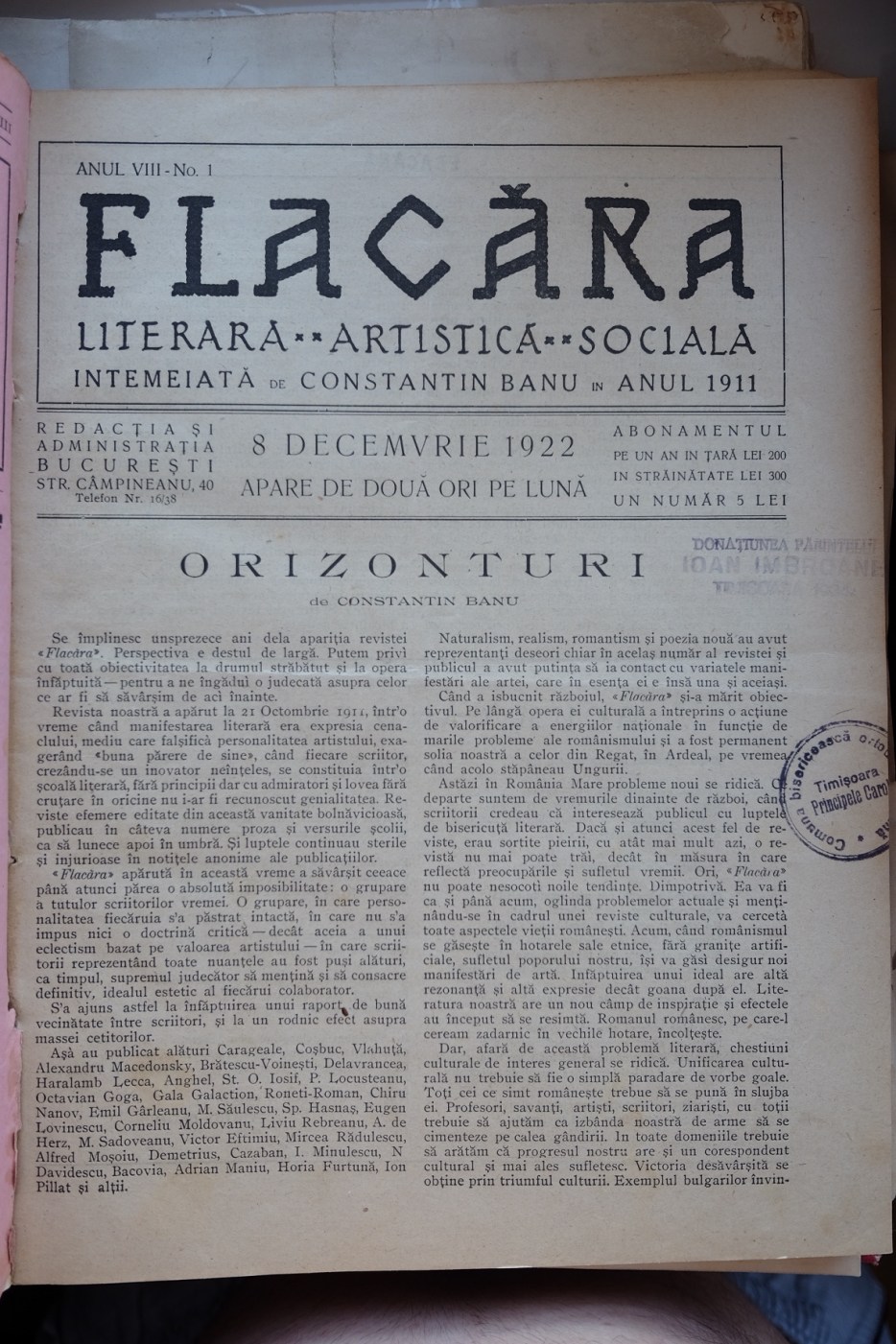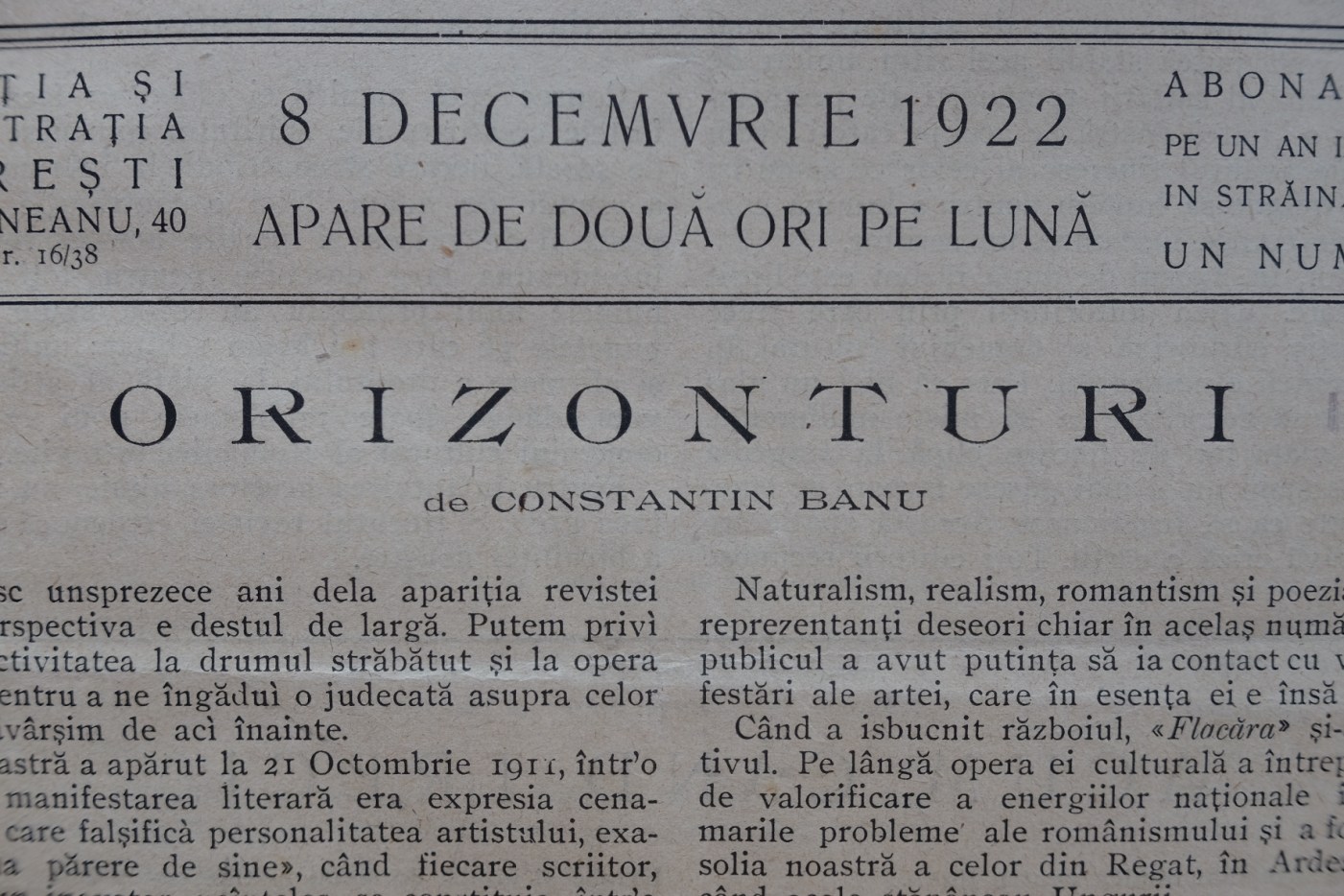
Can someone please identify this font? (ORIZONTURI)
Hi, I found this on romanian newspaper from Dec/8/1922 and was just wondering what is the font used in the 'ORIZONTURI'(skylines) title or if you know others sources that can help me to identify the origins? Thanks :)